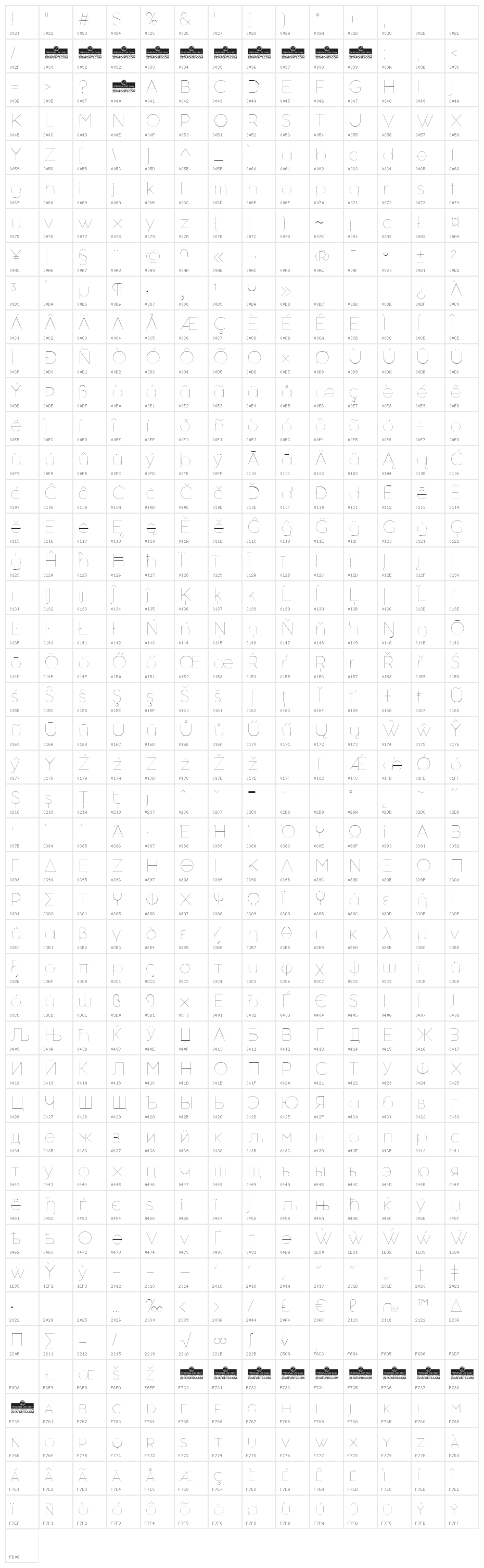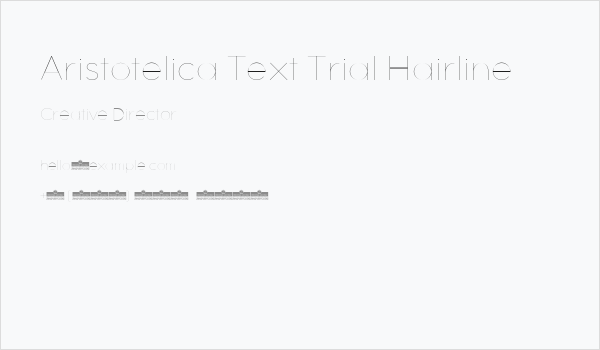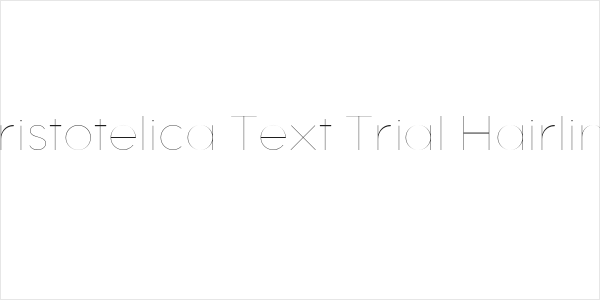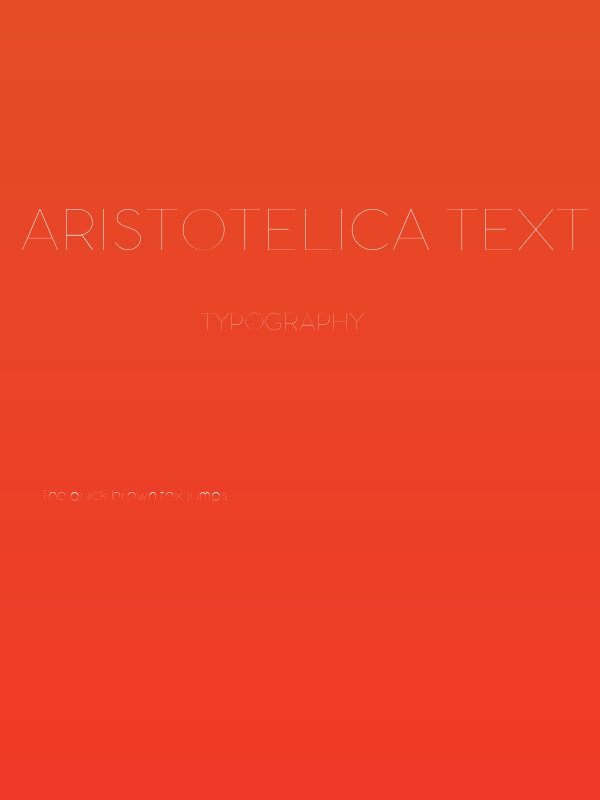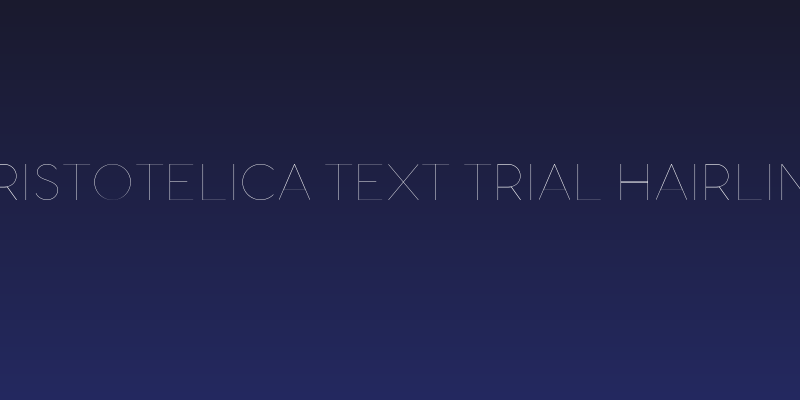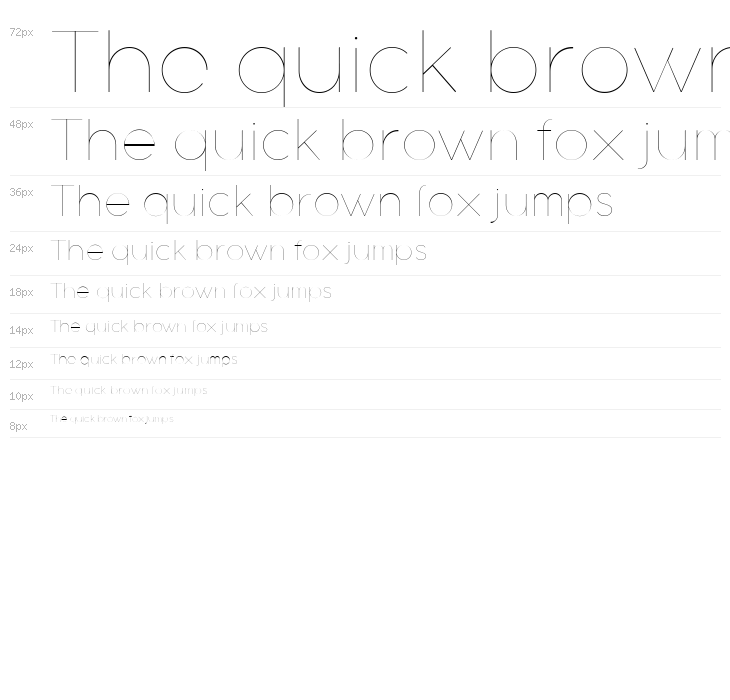
Aristotelica Text Trial Hairline Font
Aristotelica Text Trial Hairline Description
This font features a sleek, minimalist design with ultra-thin strokes that give it a modern and elegant appearance. The characters are evenly spaced, contributing to a clean and airy aesthetic. The uppercase letters are tall and geometric, while the lowercase letters maintain a consistent height, enhancing readability. The numerals and special characters follow the same thin line style, ensuring uniformity across all text elements. This font is ideal for projects that require a sophisticated and contemporary look, such as branding, editorial design, and digital interfaces.